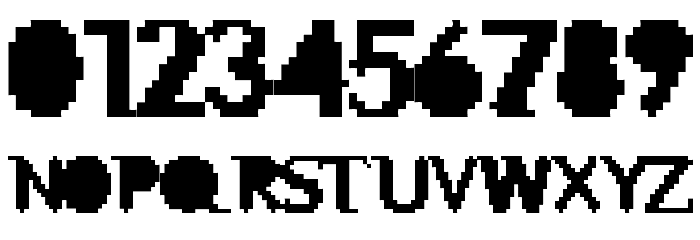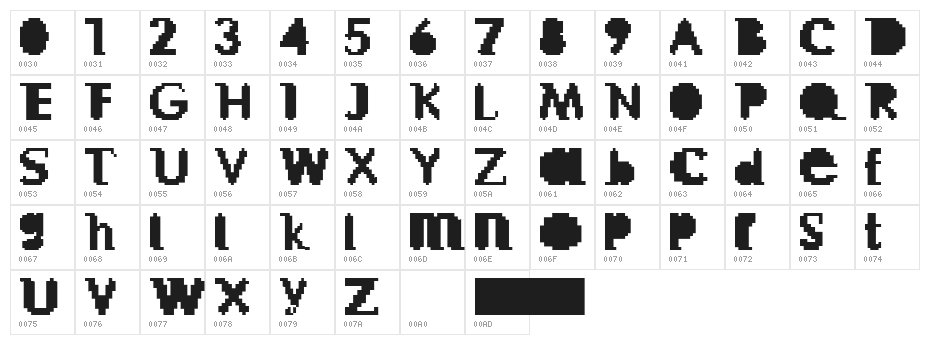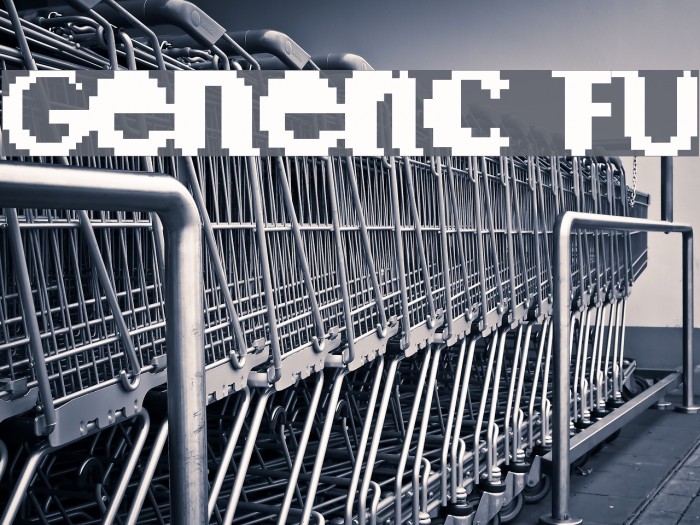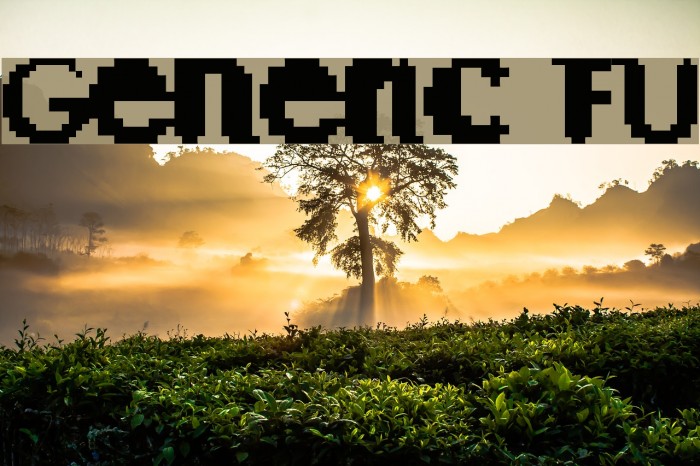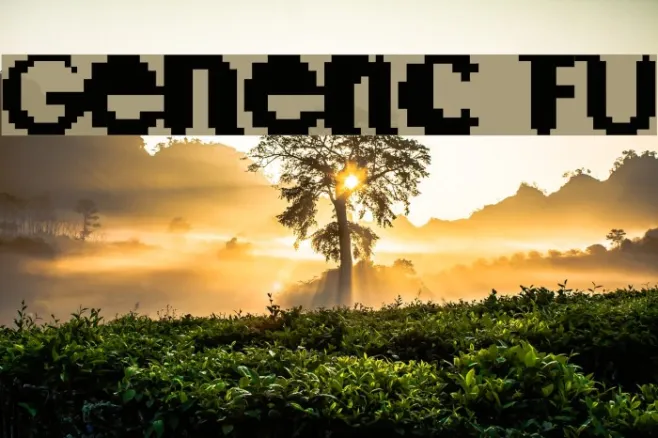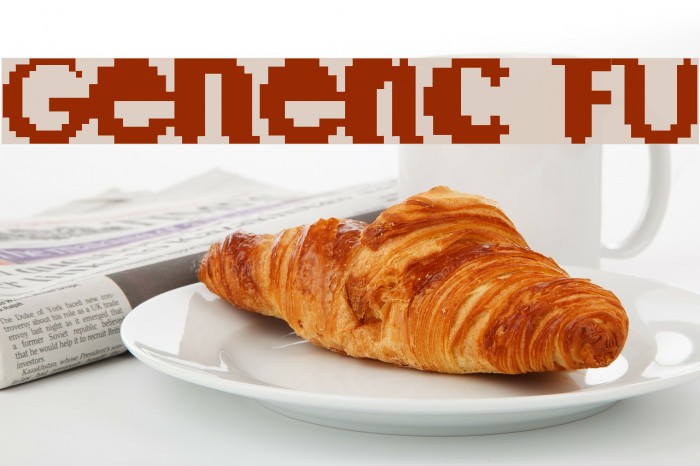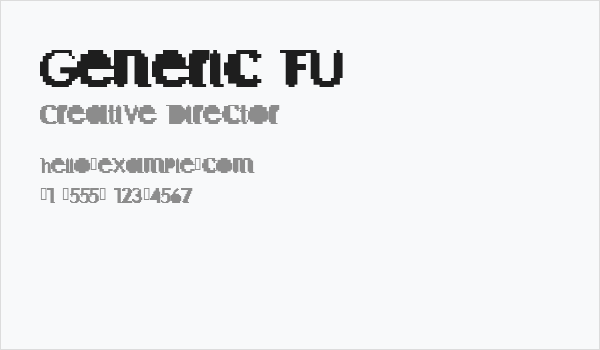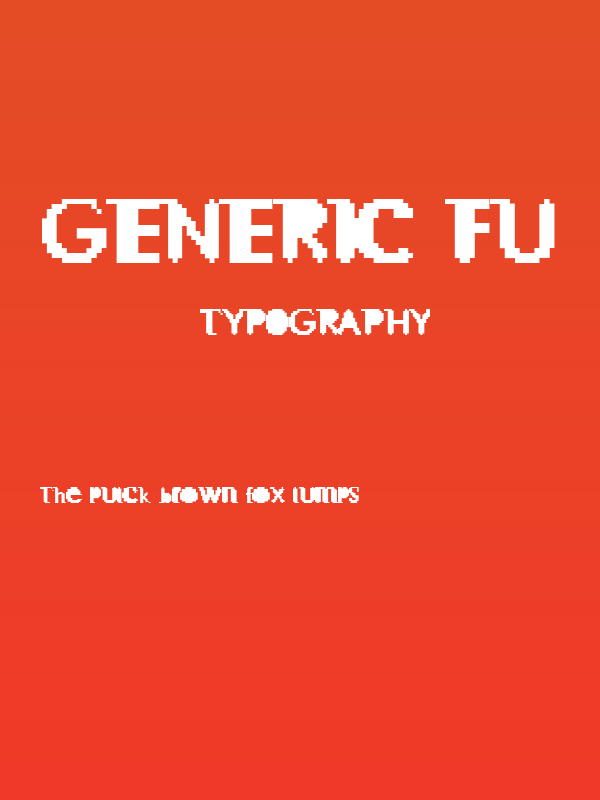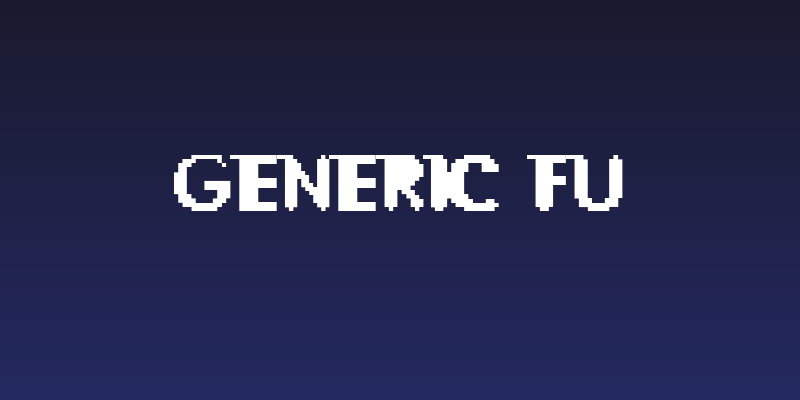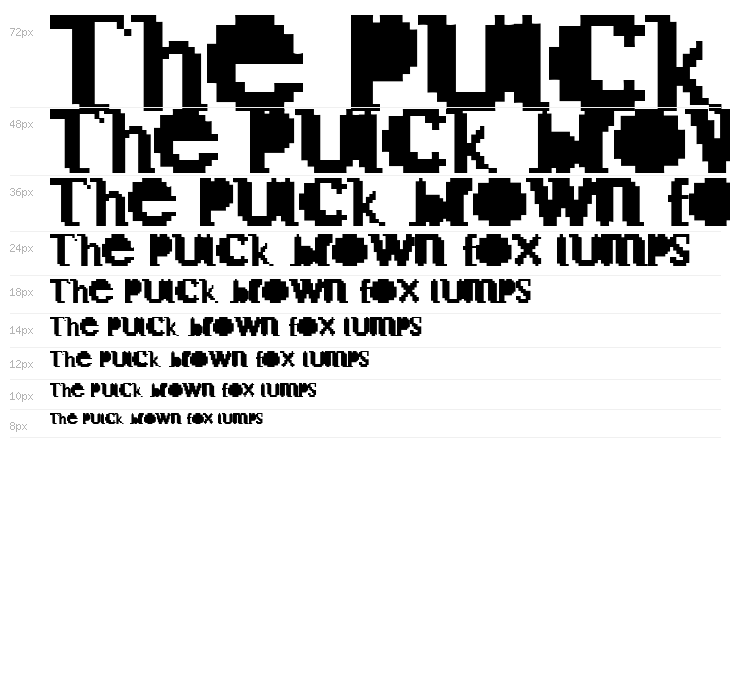
Generic FU Font
Generic FU Description
This font features a bold and blocky design with a pixelated, digital aesthetic. The characters are constructed with sharp, angular edges, giving them a distinct, futuristic appearance. The uppercase and lowercase letters maintain a consistent style, with each character exhibiting a unique geometric form. The numbers and special characters follow the same design principles, ensuring uniformity across the font. This typeface is highly stylized, making it suitable for projects that require a modern and edgy look.
| Proposed Projects | Ideal for video game graphics, tech-themed posters, digital art projects, and modern branding. |